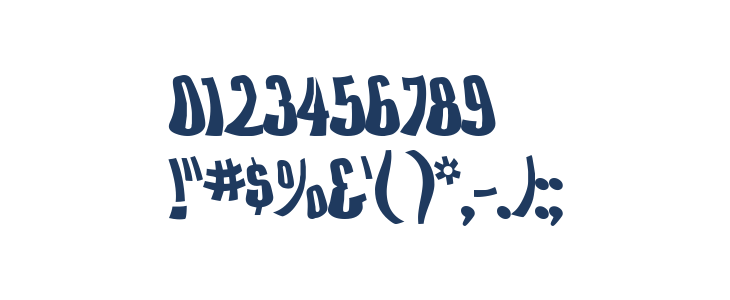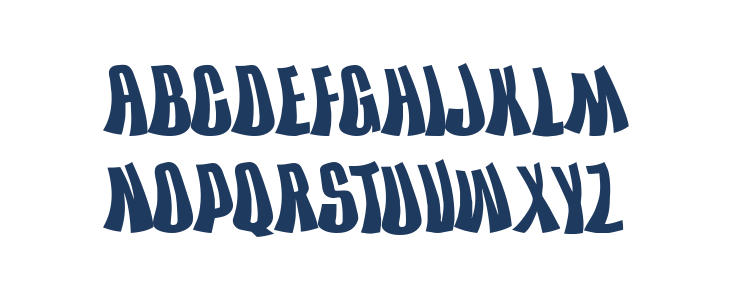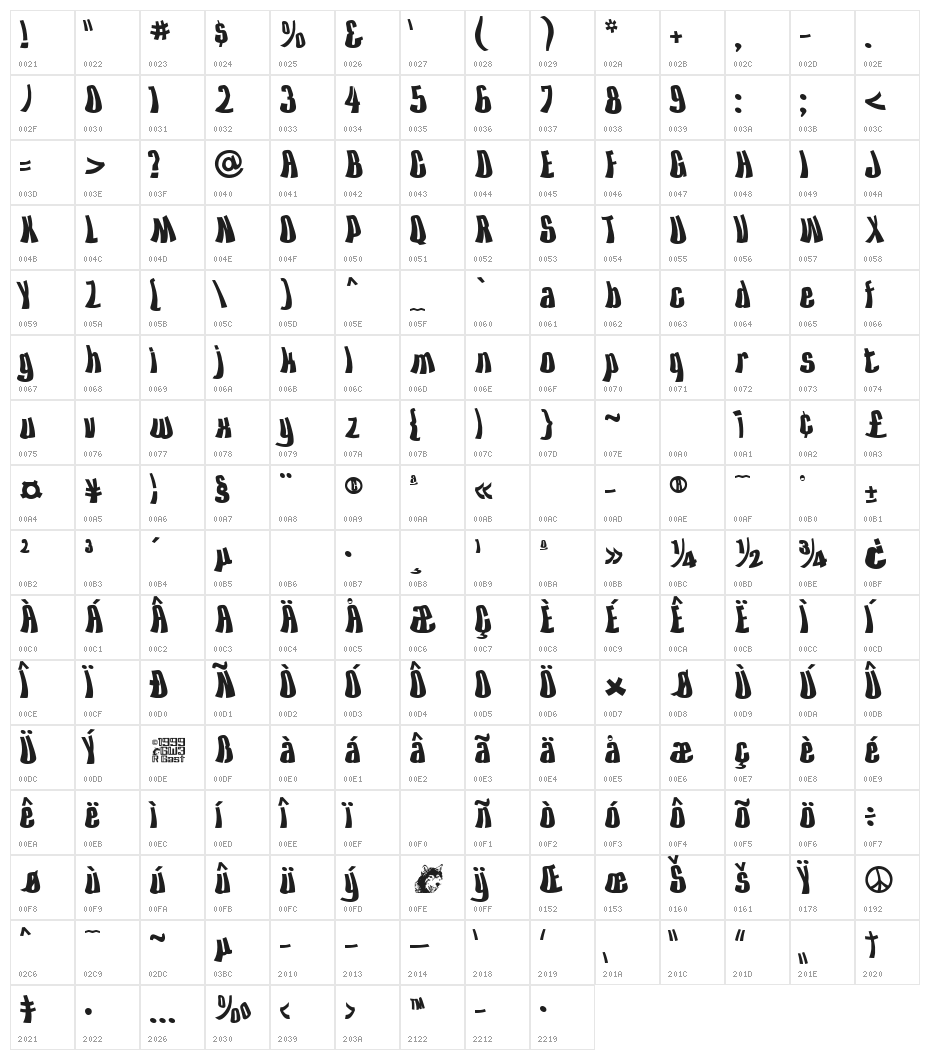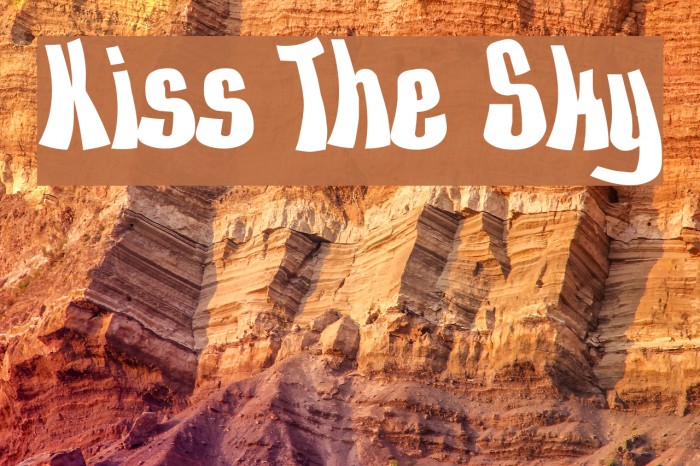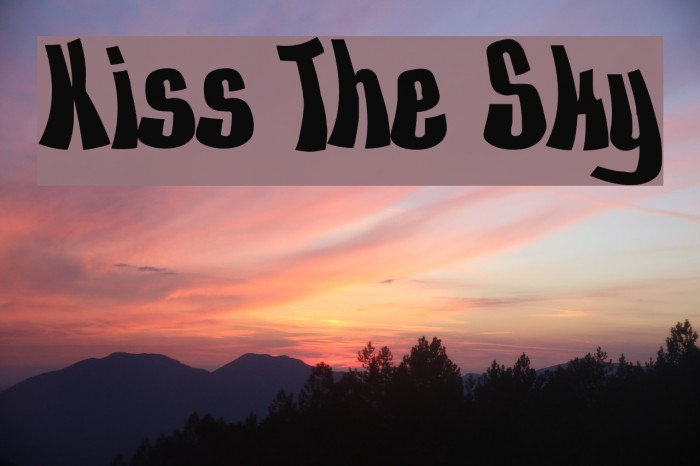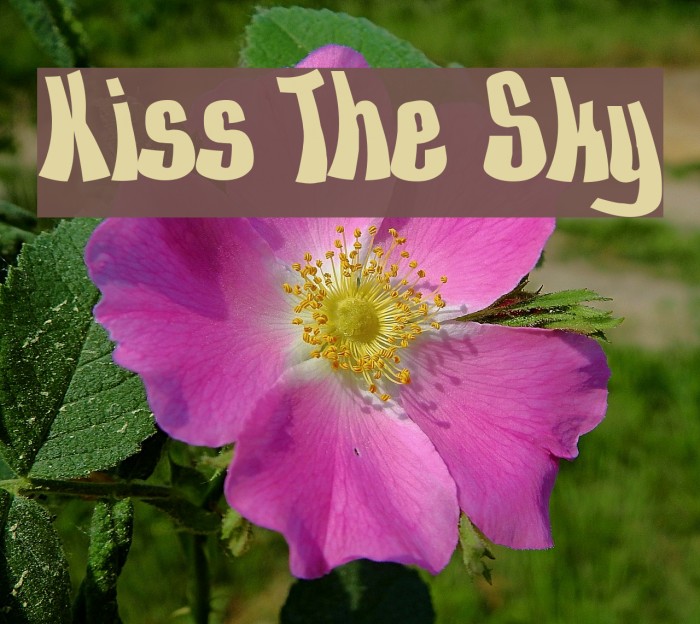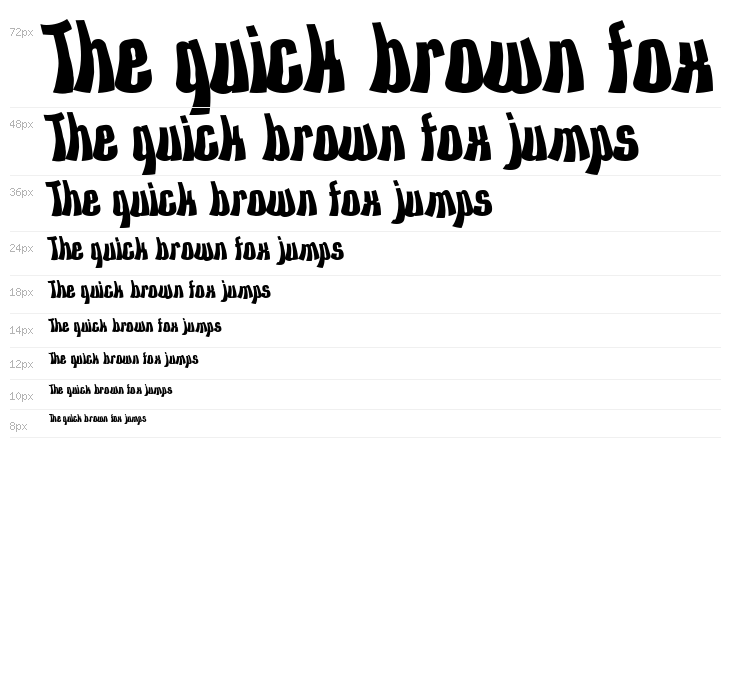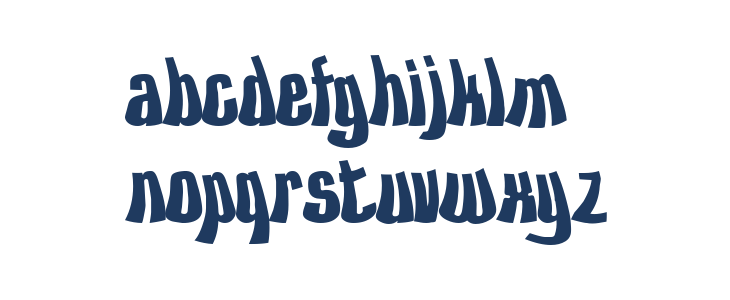
Kiss The Sky Font
Kiss The Sky Description
This font features a bold and playful design with a distinctively wavy and irregular form. The characters have a dynamic, flowing appearance, giving them a sense of movement and energy. The uppercase and lowercase letters maintain a consistent style, with exaggerated curves and varying line thicknesses that add to its whimsical nature. The numbers and special characters follow the same playful aesthetic, making the font suitable for creative and informal applications. Its unique style is eye-catching and memorable, ideal for projects that require a fun and lively touch.
| Proposed Projects | Ideal for posters, children's books, party invitations, and creative branding. |